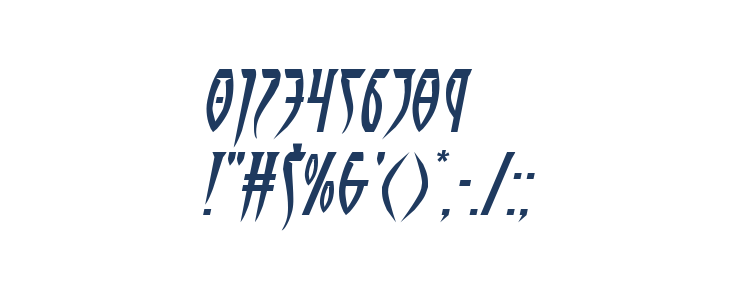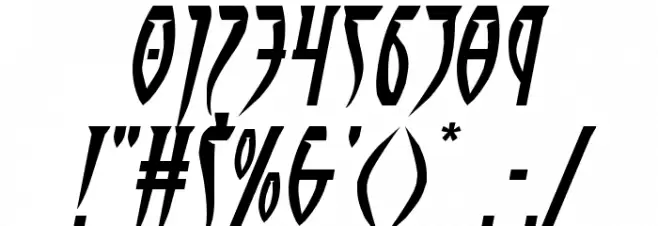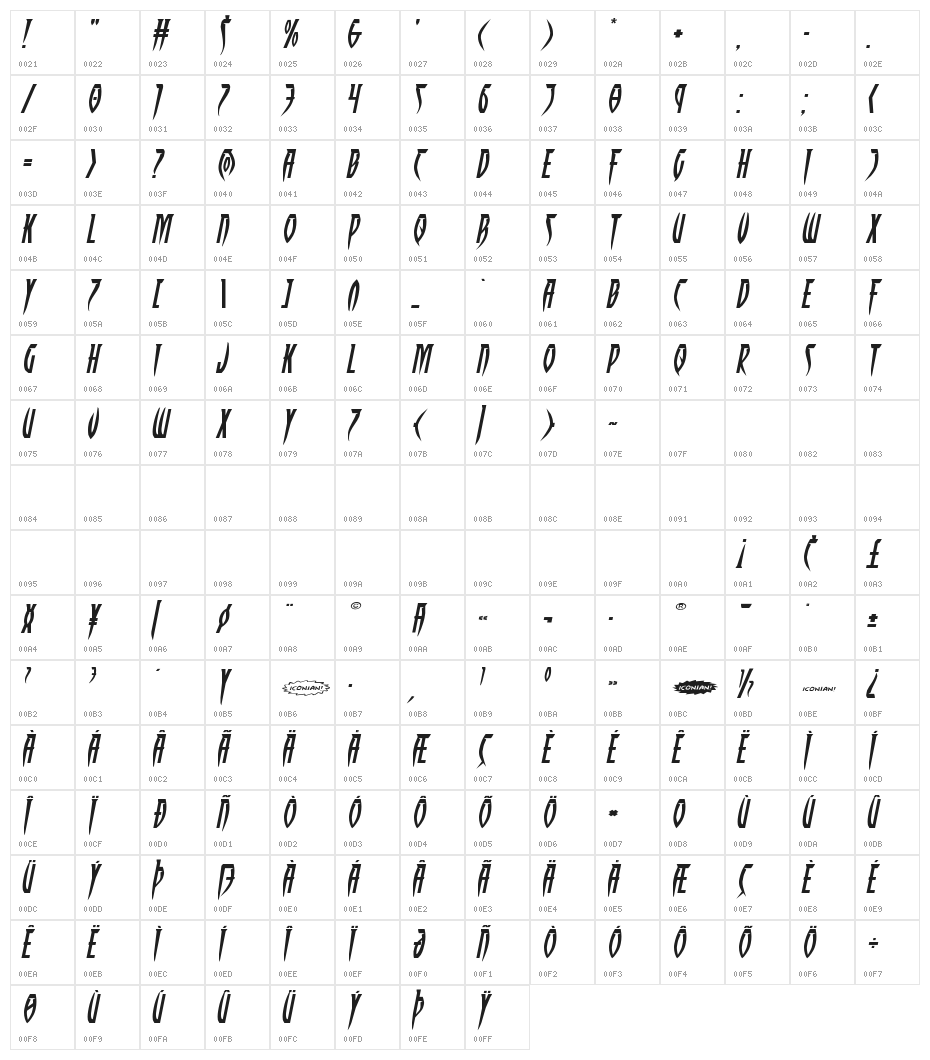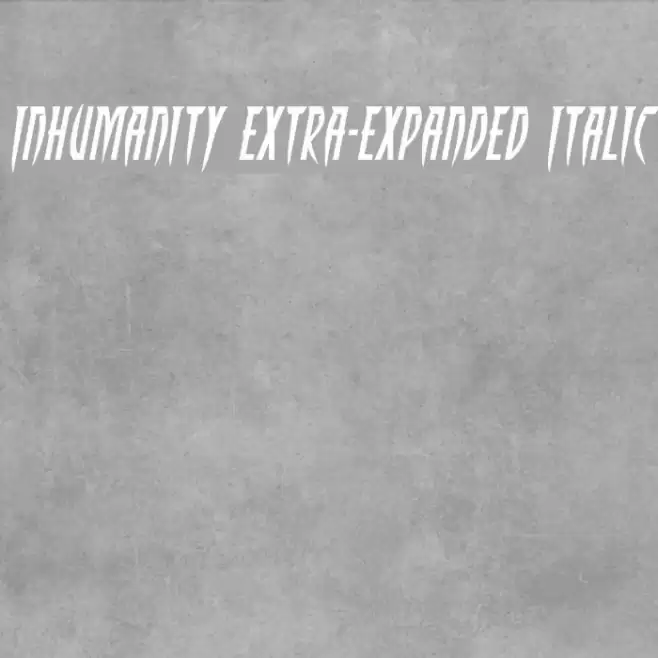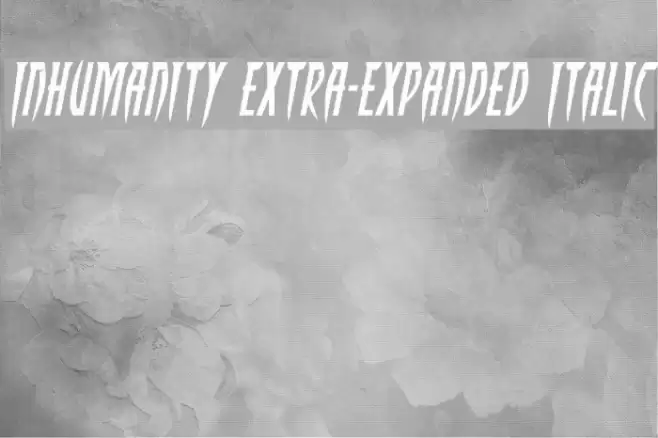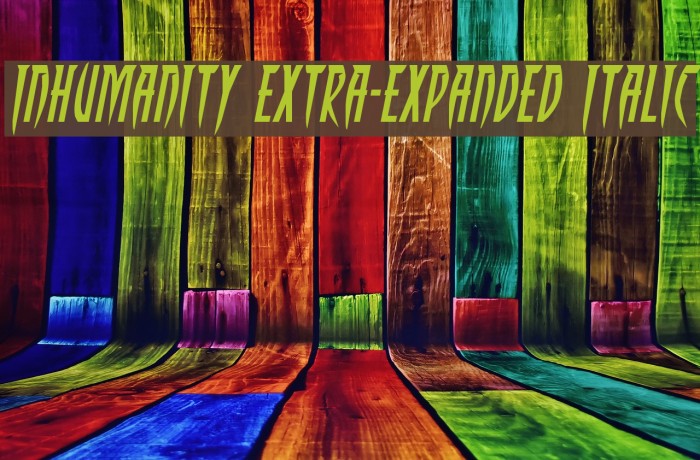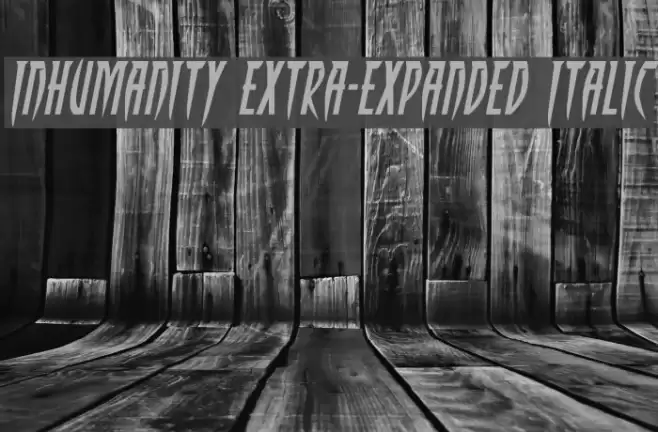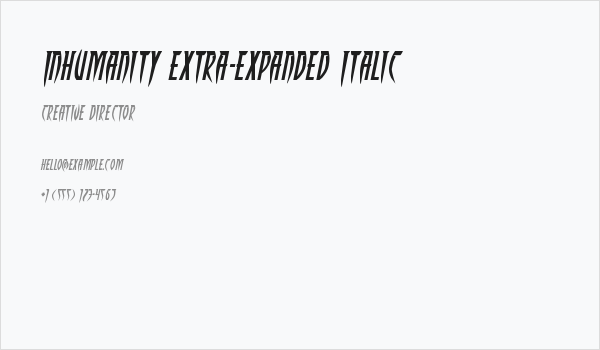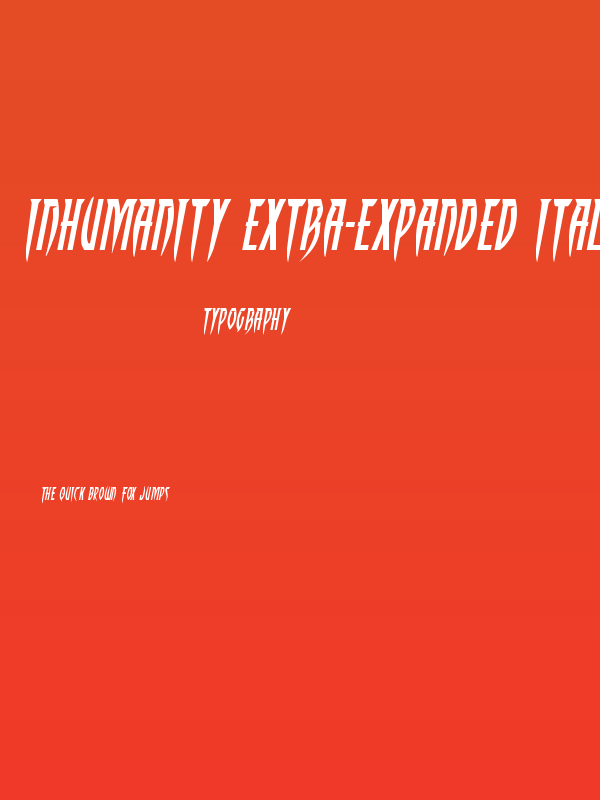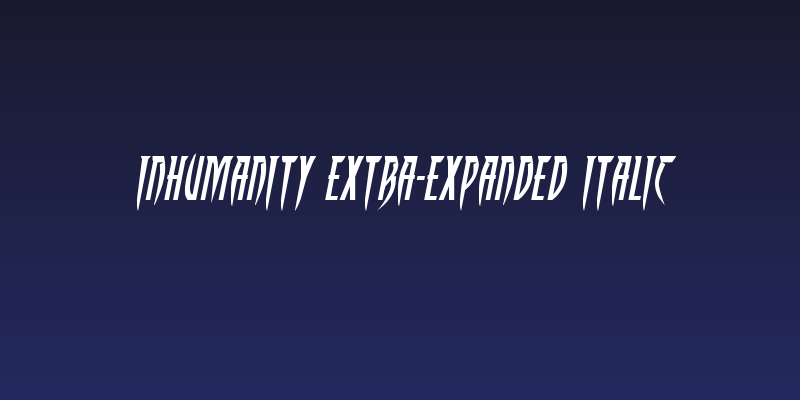
Inhumanity Extra-Expanded Italic Font
Inhumanity Extra-Expanded Italic Description
This font features a bold and dynamic style with an extra-expanded width and italic slant, giving it a striking and aggressive appearance. The characters are sharply angled and elongated, creating a sense of movement and energy. The uppercase and lowercase letters maintain a consistent design, with exaggerated serifs and pointed edges that enhance its boldness. The numerals and special characters follow the same design principles, ensuring uniformity across all glyphs. This font's unique style makes it ideal for attention-grabbing headlines and impactful designs.
| Proposed Projects | Ideal for sports branding, music album covers, poster designs, and video game titles. |